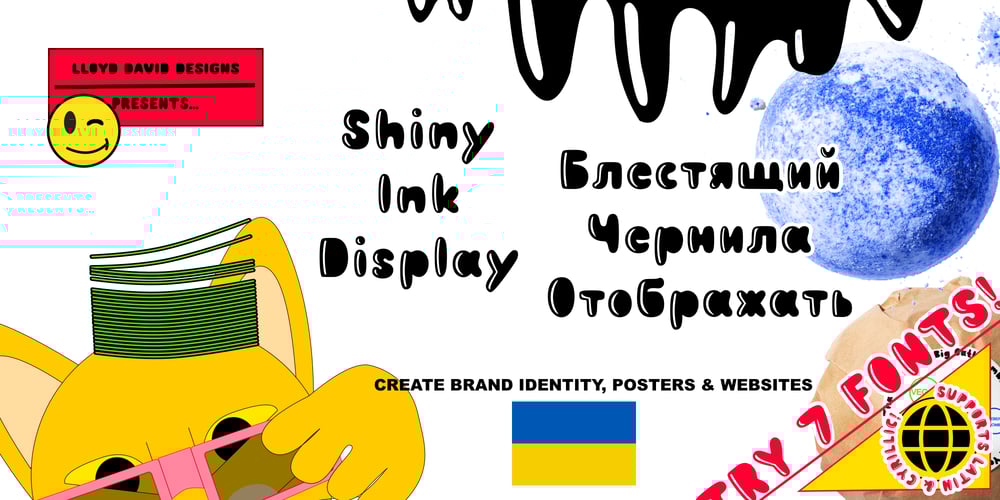
Shiny Ink Display
Shiny Ink Display font
Shiny Ink Display Font Family was designed by Vladimir Tsagolov, Lloyd David and published by Lloyd David Designs. Shiny Ink Display contains 14 styles and family package options. Hi there, thanks for looking at my first typeface. It began as one of my original sketches back in 2019 as a freelance graphic designer trying to create unique letterforms that I could use for posters or websites with other possible use cases in mind for commercial use. The sketches were then passed on to and worked on with Vladimir Tsagolov who has more experience in creating professional typefaces, the experience for me was invaluable, and I have many more typefaces I’m now working on. Shiny Ink Display is a collection of hand drawn fonts based on the flow of reflective viscous ink with 7 styles, some styles can be interchangeable and used on top of each other. For example, Shiny Ink Display Plain, can be used with Shiny Ink Display Plain Lined to create shadows underneath it, at angles not available with the Shadow styles you’ll see in the font collection.Shiny Ink Display has various use cases, maybe even infinite, but more specifically for posters or websites with large text, though it bodes quite well at smaller sizes, and is visually appealing to its viewers as long as it’s at a legible font size. When it comes to font pairing, Shiny Ink Display works especially well with Monospace and sans-serif fonts. You can check the poster examples on this page to help you imagine what you could do with the font styles. I also had in mind manufactured products, but I could leave that to you to create your ideas with the available font styles.In regards to languages or typing on a keyboard, most of the English/European latin or cyrillic language keys are supported, so you’ll have lots of glyph characters to play with for a number of ideas you may have.All the best with your projects using my fonts, if there are any issues, don’t hesitate to contact me for support: lloyddaviddesigns.co.uk – Lloyd David